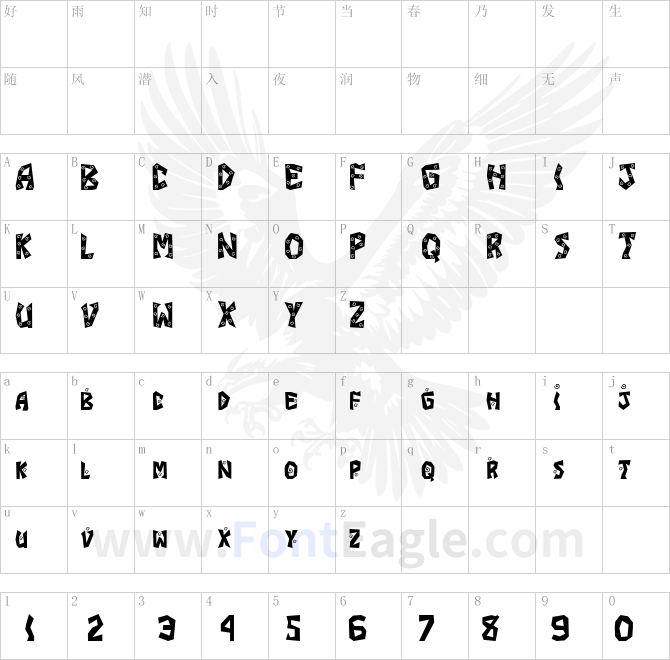
JI-Margarita is a great font, widely used in graphic design, single-page menu design, poster design and other fields, and is deeply loved by designers.JI-Margarita download.